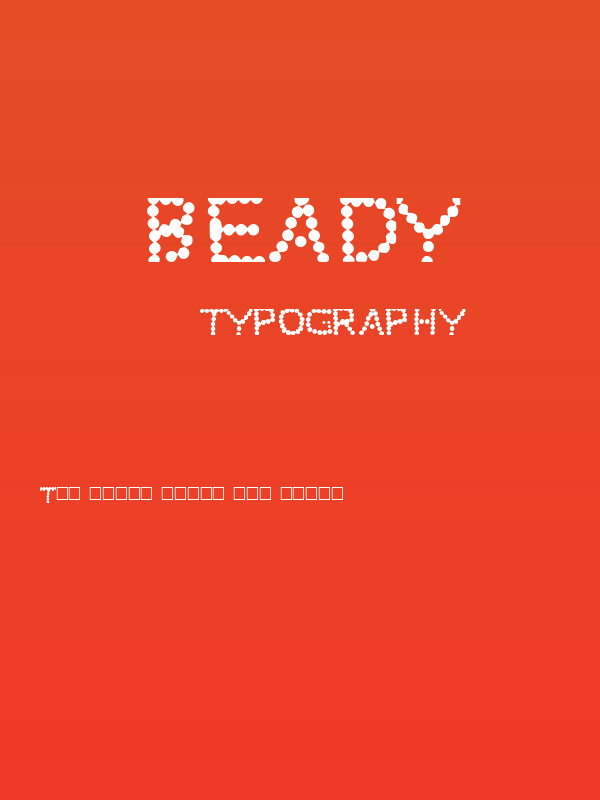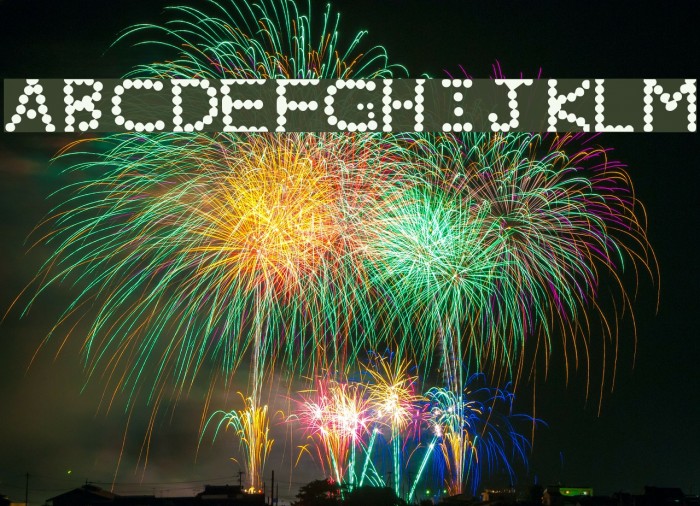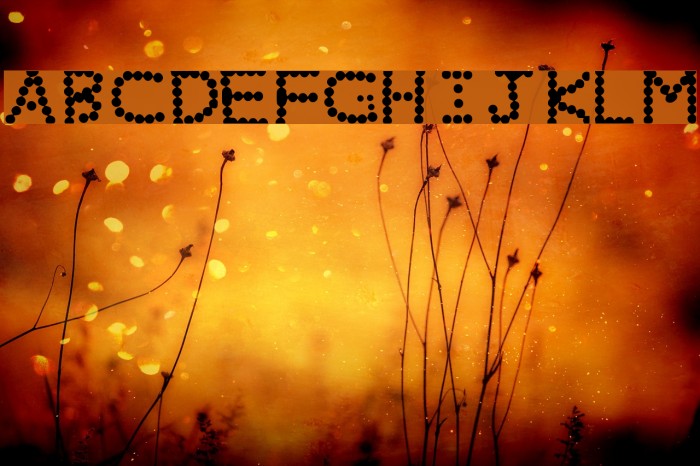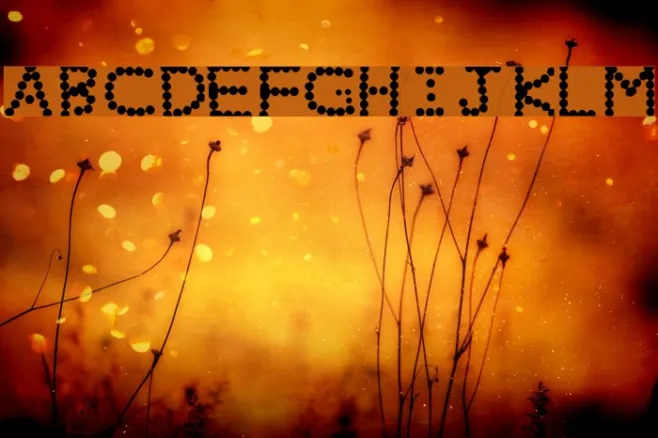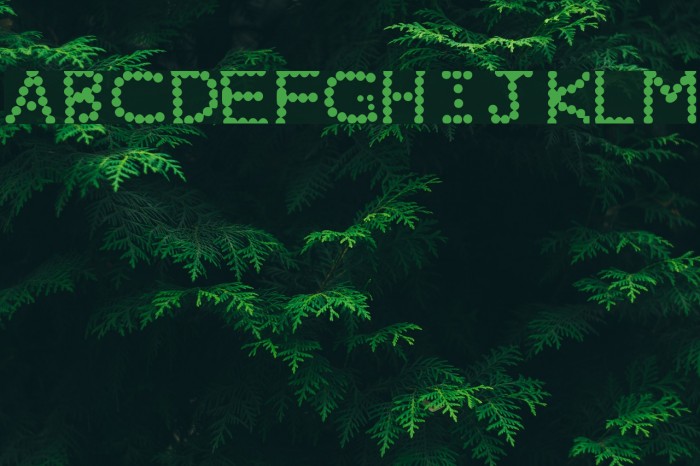
Beady Font
Beady Description
This font features a unique design where each character is composed of small, evenly spaced dots, creating a beaded effect. The uppercase letters are clearly defined with a consistent pattern, giving the font a playful yet structured appearance. The absence of lowercase letters and numbers suggests a focus on decorative or headline use. The special characters are not present, indicating a limited but specific application. This font's distinct style makes it ideal for creative projects that require a touch of whimsy and modernity.
| Proposed Projects | Suitable for party invitations, children's book covers, playful branding, and modern art projects. |